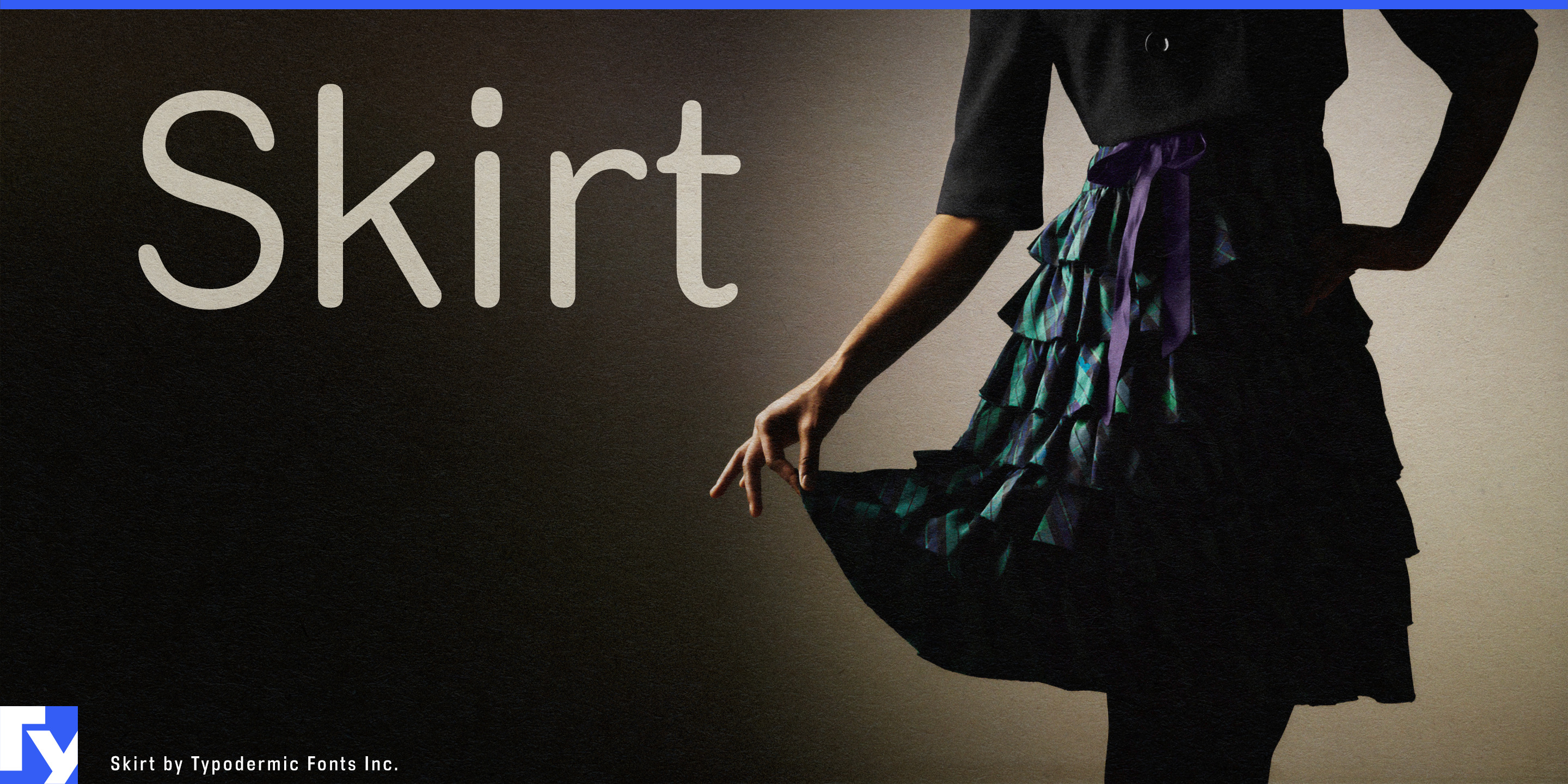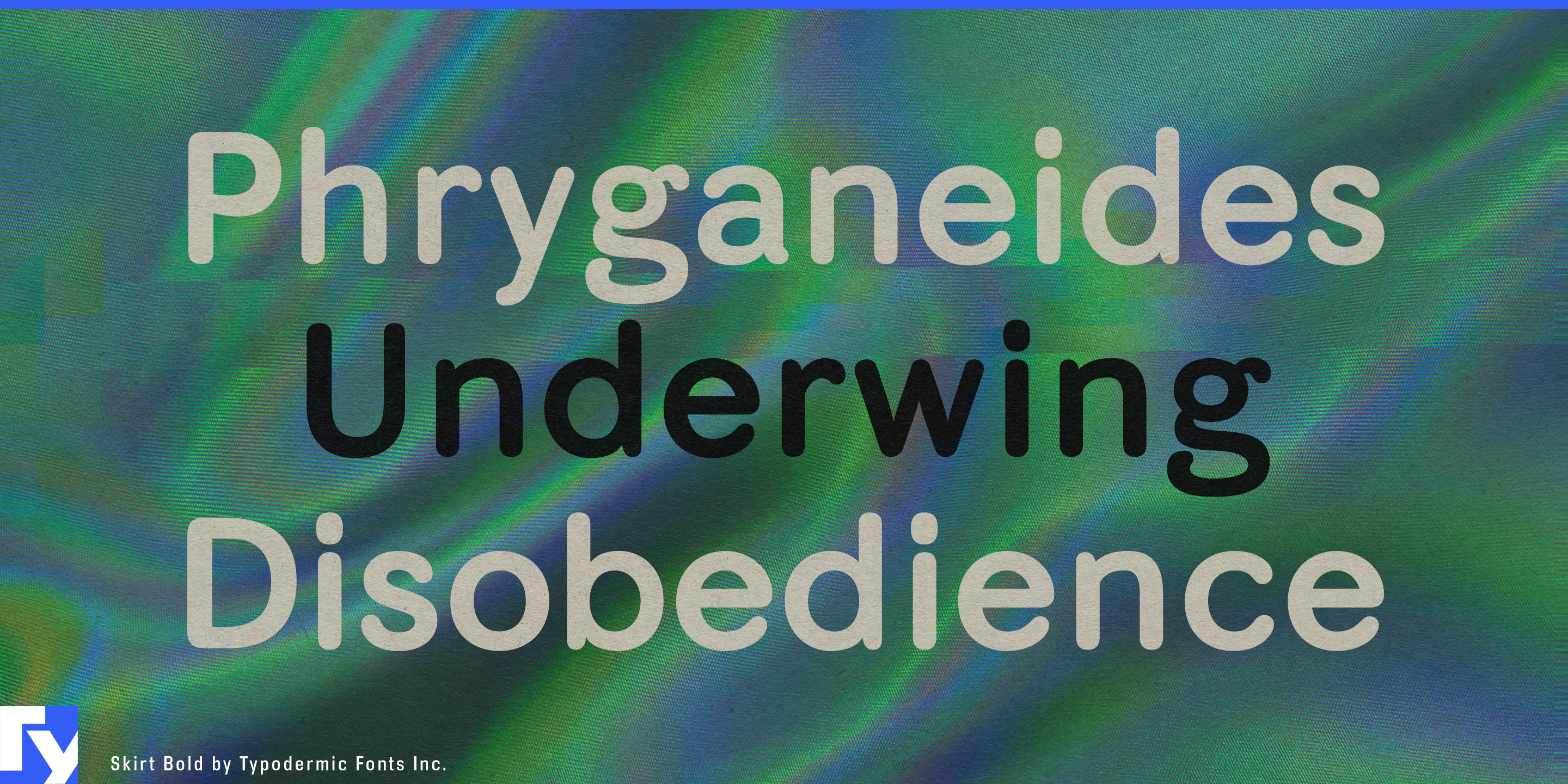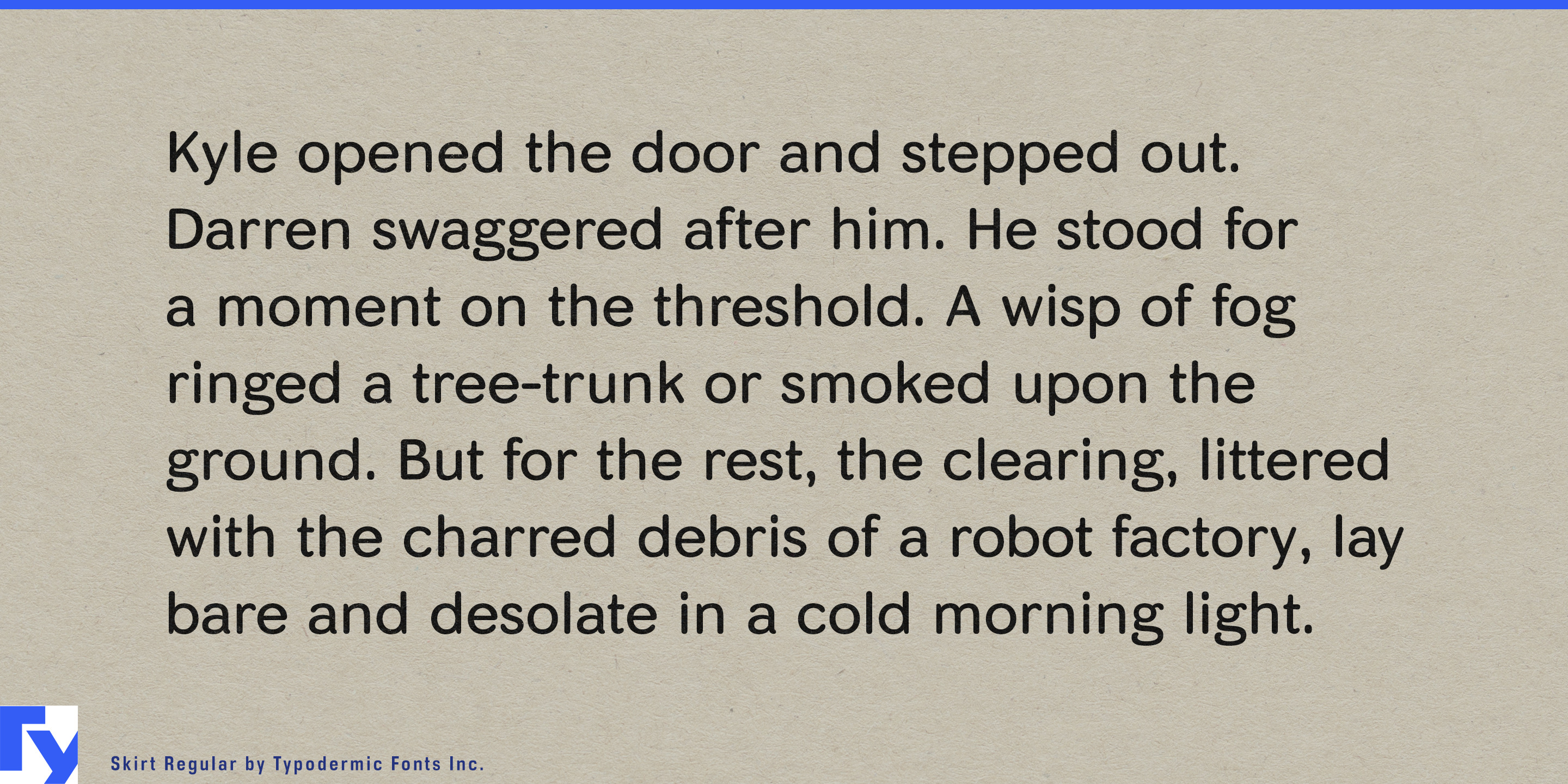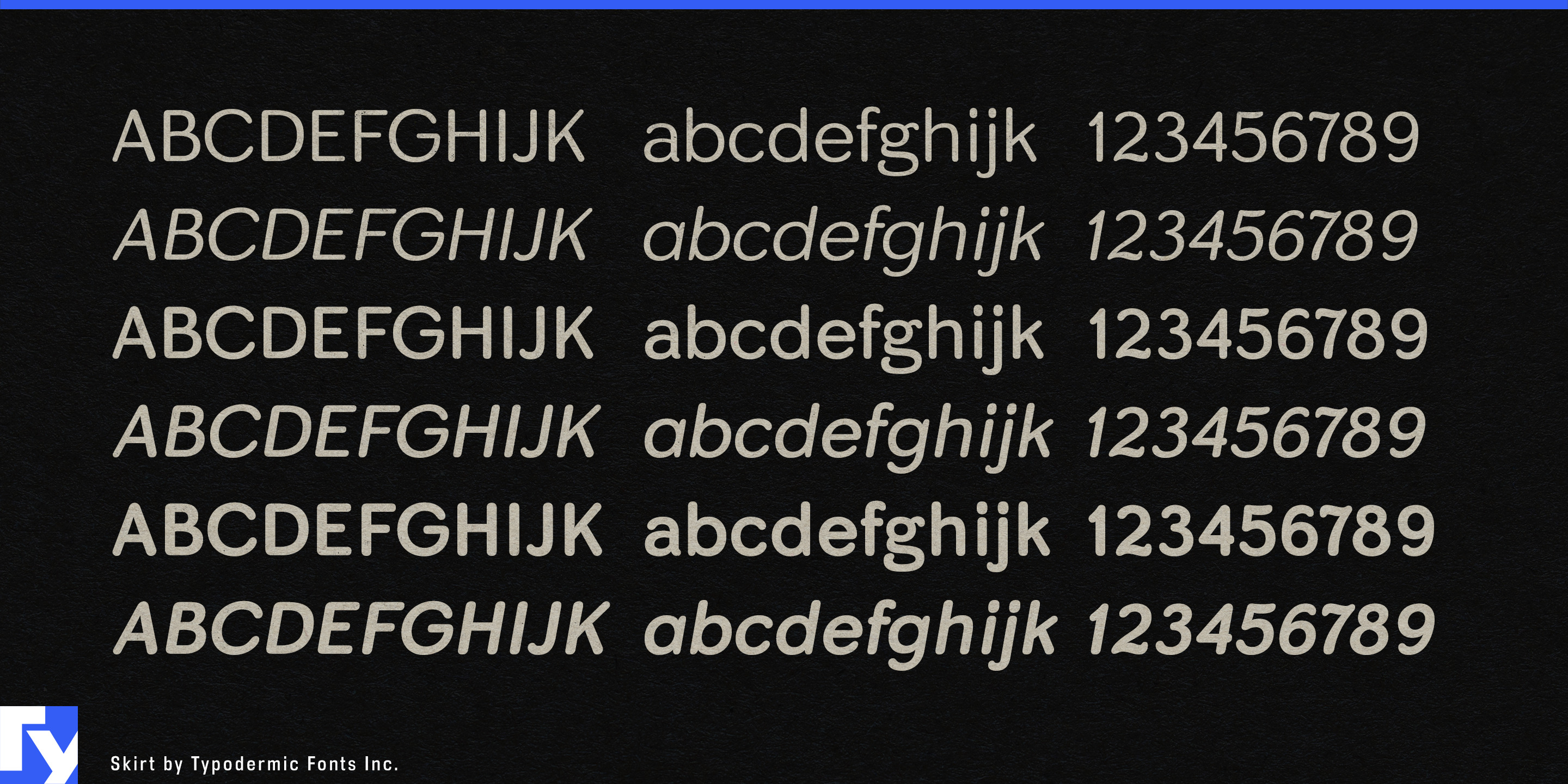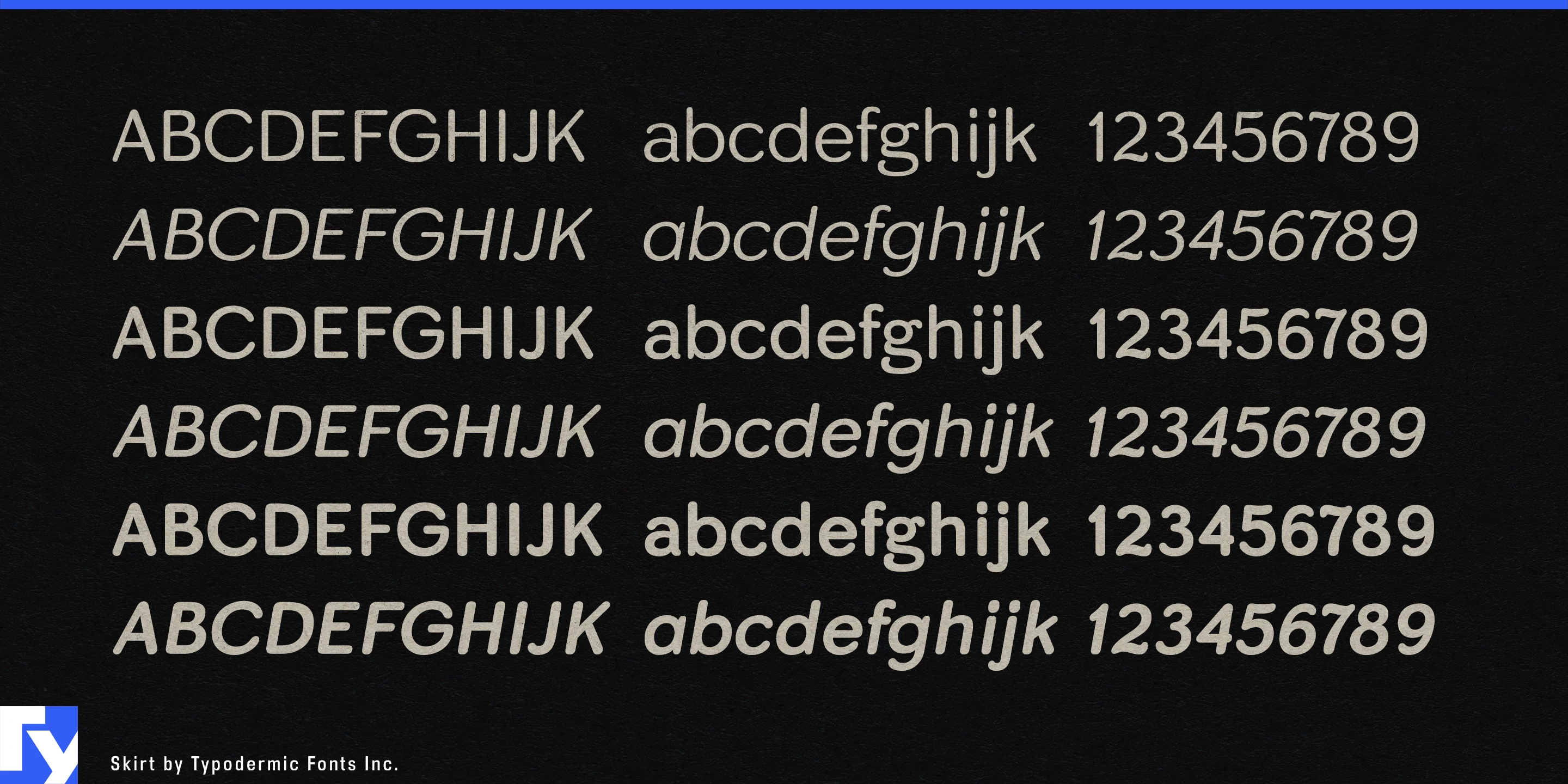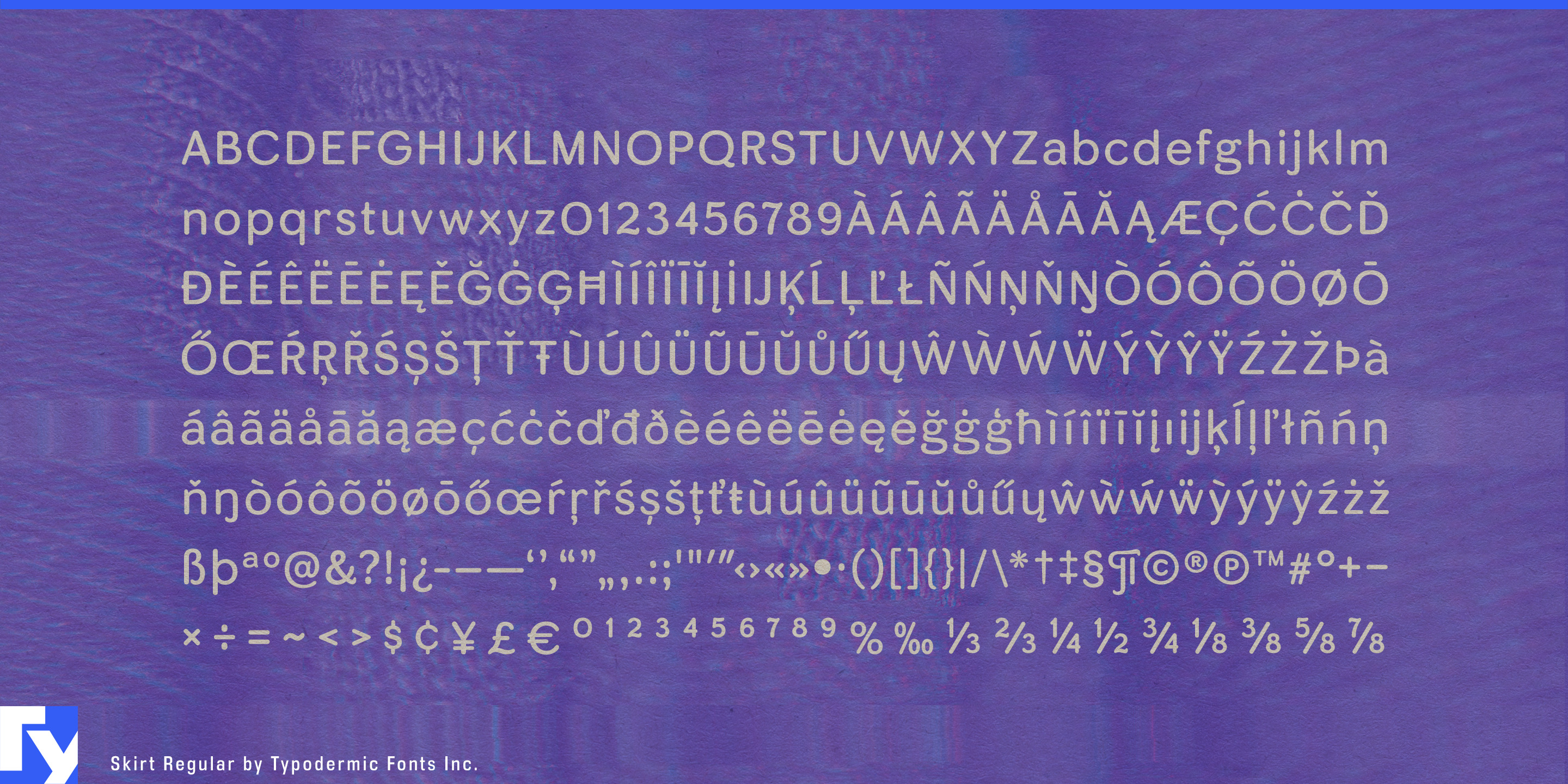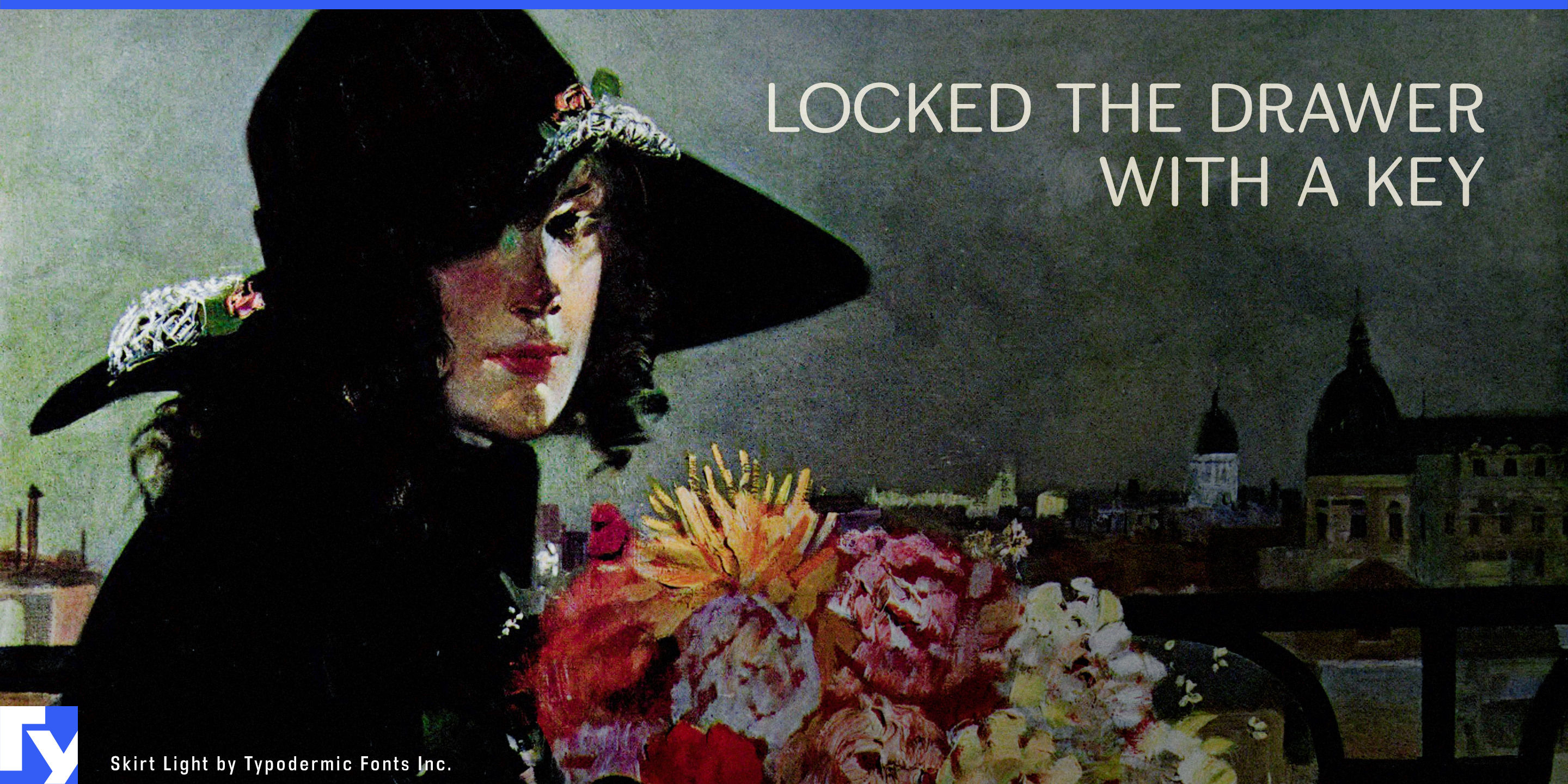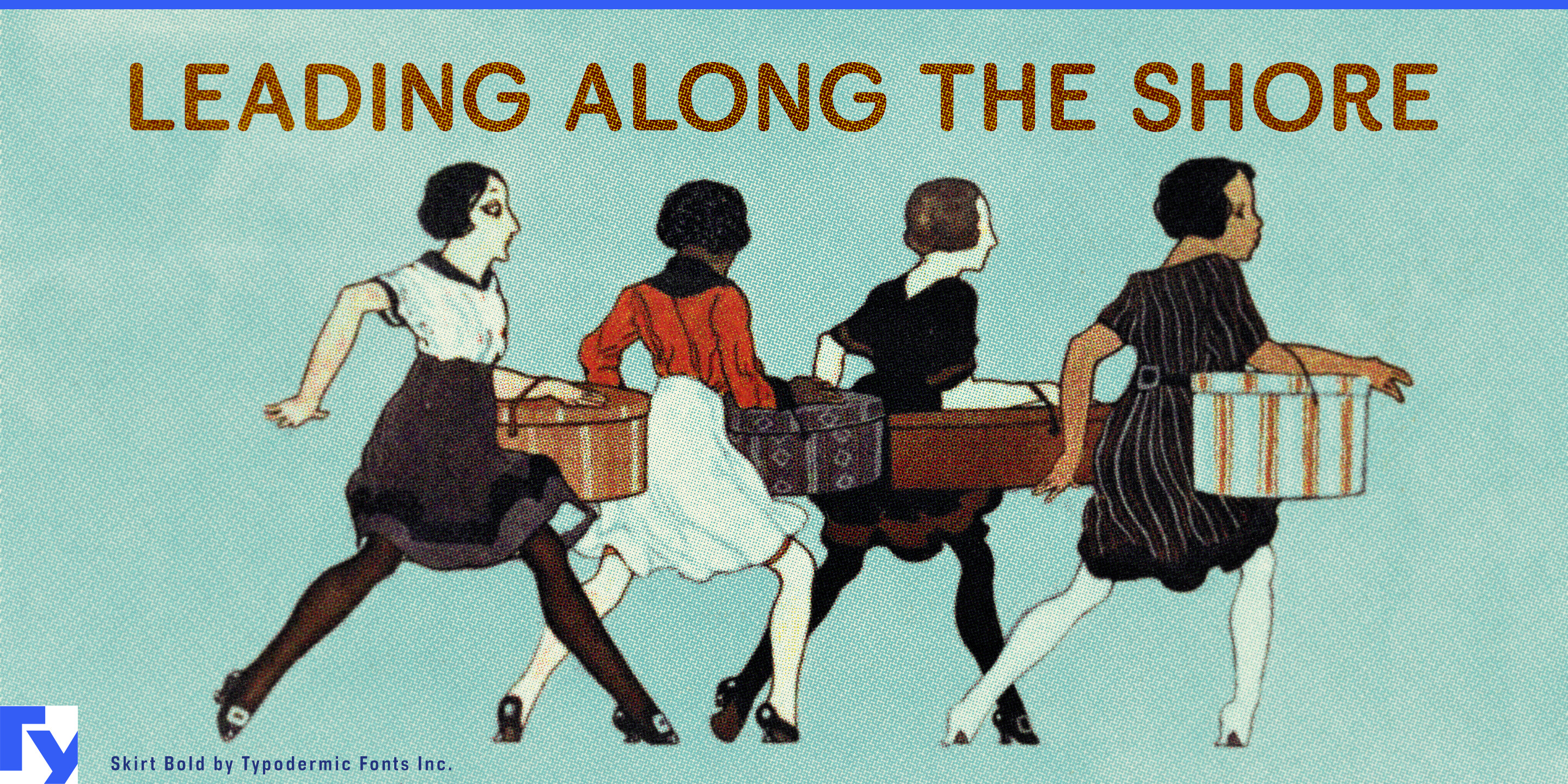
Skirt
A garment now exists in two places: on the body and inside an information system. It may need a product page, digital passport, repair history, authentication record, resale listing and QR-linked care guide. The typography has to move between fabric and screen without making the brand feel like a compliance portal. Skirt gives the physical product and the information around it a common voice.
Its construction balances geometric order with softened terminals and subtle pen-like modulation. The result feels tactile without imitating handwriting, and polished without the brittle formality of high-fashion display type. Skirt can establish garment names, headings, prompts and short explanations while sitting comfortably beside photography, fabric samples and interface elements. Serial numbers, legal text and dense specifications can remain in a quieter companion face.
Circular fashion systems give that balance a practical role. Material-provenance pages, repair programs, take-back services and authenticated resale all ask customers to understand what a garment is made from, how it should be cared for and what can happen after its first owner. Skirt can carry collection names, care prompts, repair guidance, product histories and return or resale actions without separating the information from the character of the clothing.
Textile technology creates a related challenge. Recycled fibres, bio-based materials, performance textiles, low-impact dye systems and fibre-recovery processes have to speak to designers, engineers and consumers at once. Skirt can identify fibre families, proprietary fabrics, recycling platforms and material collections across swatch books, sample cards, hangtags, digital libraries, trade-show graphics and launch presentations.
Fit technology brings the interface even closer to the body. Body scanning, size-recommendation systems, virtual fitting, made-to-measure services and on-demand production all collect precise information while asking customers to make personal choices. Skirt can handle onboarding questions, fitting stages, garment options and concise guidance without making the process feel clinical.
From a hangtag to a repair screen, Skirt keeps the garment and its digital life recognizably part of the same design system.